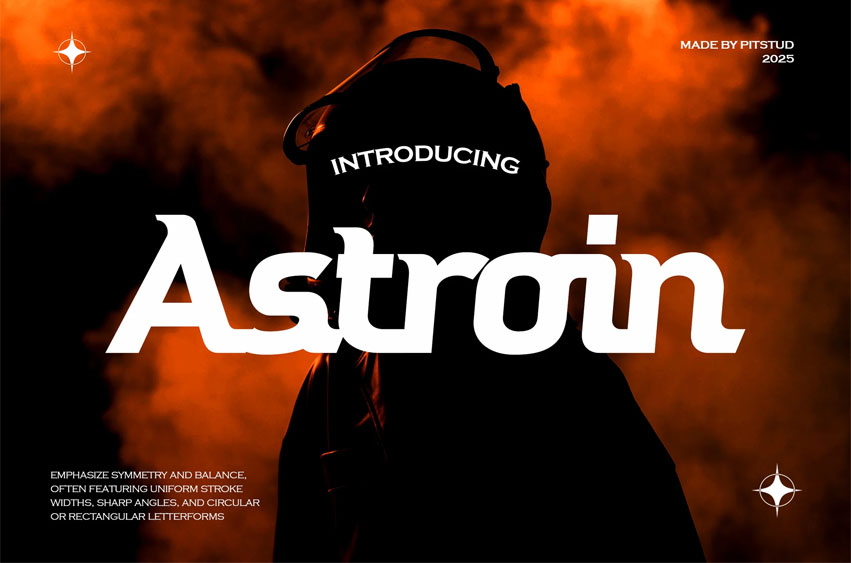
Astroin Font
Astroin Font Decorative Futuristic Font is a sleek and innovative typeface designed to bring modern precision, bold aesthetics, and futuristic style to your creative projects. Featuring geometric shapes, clean edges, and unique decorative details, Astroin delivers a cutting-edge aesthetic perfect for sci-fi themes, digital interfaces, and modern design concepts.
Whether you’re working on a technology brand, digital product, modern poster, or futuristic logo, Astroin offers the perfect balance of readability and stylish visual impact. Its structured forms and contemporary details make it ideal for branding, packaging, advertising, web design, and digital media.
• Futuristic & Decorative Design: Bold geometric style with sleek modern touches.
Astroin combines modern elegance and futuristic innovation to create a typeface that stands out while remaining highly functional. Whether for branding, editorial layouts, or digital experiences, Astroin adapts seamlessly to elevate your designs.
• Brand Identity: Give your business a sleek,
futuristic edge.
• Advertising & Marketing: Make campaigns stand out with bold typography.
• Editorial Design: Create eye-catching magazine and digital headlines.
• Product Packaging: Enhance modern and tech-inspired products.
• Logo Design: Establish a strong, futuristic visual signature.